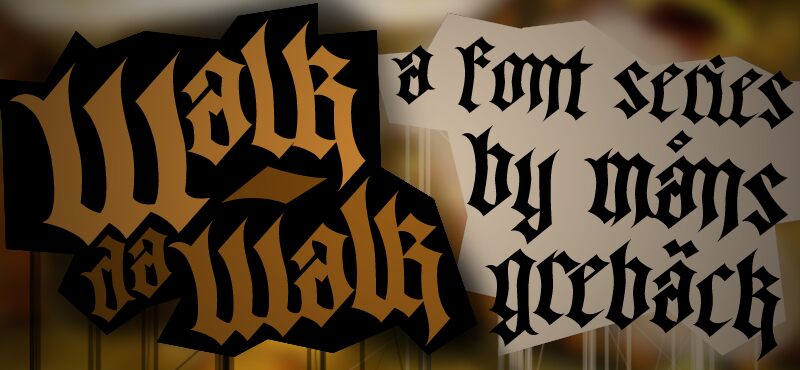
Walk Da Walk Three by Måns Grebäck is a free medieval blackletter font with a dense and commanding silhouette. Broad vertical strokes, sharp diamond cuts, and long pointed flourishes give the letters the look of richly ornamented Gothic display lettering.
A metal band or tattoo studio can use its dark, aggressive forms for logos, merchandise, and branded packaging. It also suits horror posters and games with occult or medieval themes.